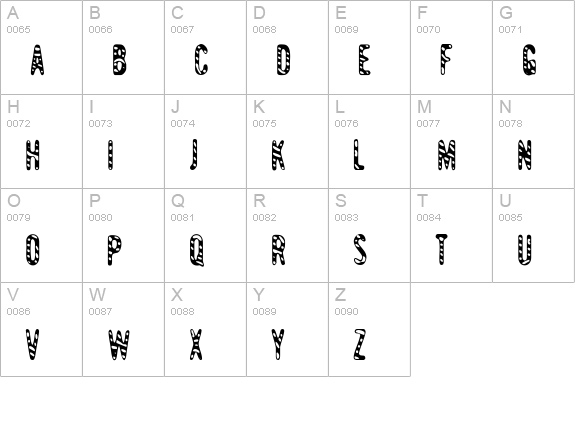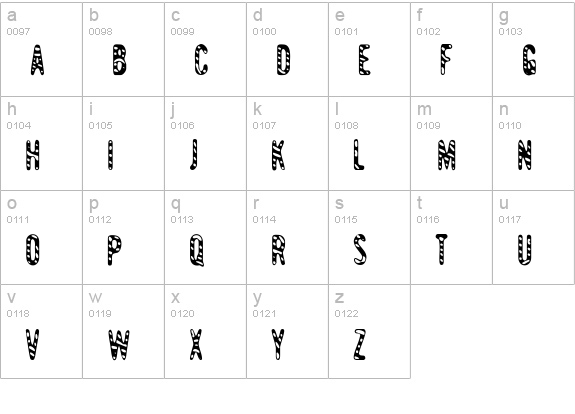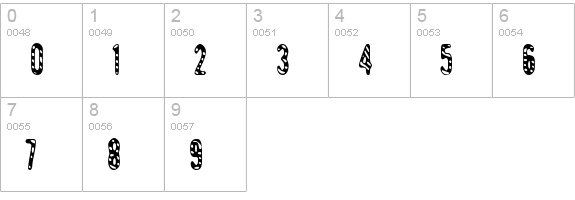
GiantTigers Font Details
Introducing GiantTigers font, a bold and dynamic typeface that exudes power and strength. With its towering letterforms and fierce aesthetic, this font commands attention and makes a bold statement in any design project. Whether you're looking to add a touch of wildness to your branding, posters, or social media graphics, GiantTigers font is the perfect choice. What's even more exciting is that GiantTigers font is available for free download at FontsMarket.com. That's right, you can unleash the power of this stunning typeface without spending a dime. Don't miss out on this amazing opportunity to elevate your designs with the majestic beauty of GiantTigers font. Download it now and let your creativity run wild!